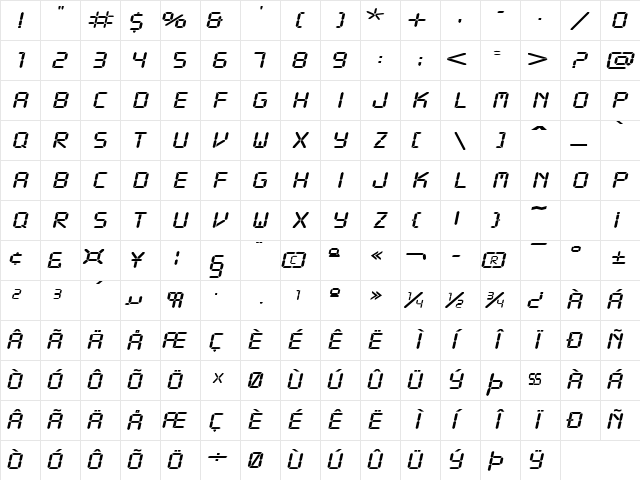
ReadoutExtended Italic
ReadoutExtended Family
ReadoutExtended Italic
Design Context for ReadoutExtended
ReadoutExtended is a composed and adaptable typeface that performs quietly and consistently across a wide range of design contexts. The slanted form adds forward momentum and visual energy.
Pro Tip: Use ReadoutExtended for emphasis, pull quotes, and subheadings where its slanted energy can add rhythm to the layout.